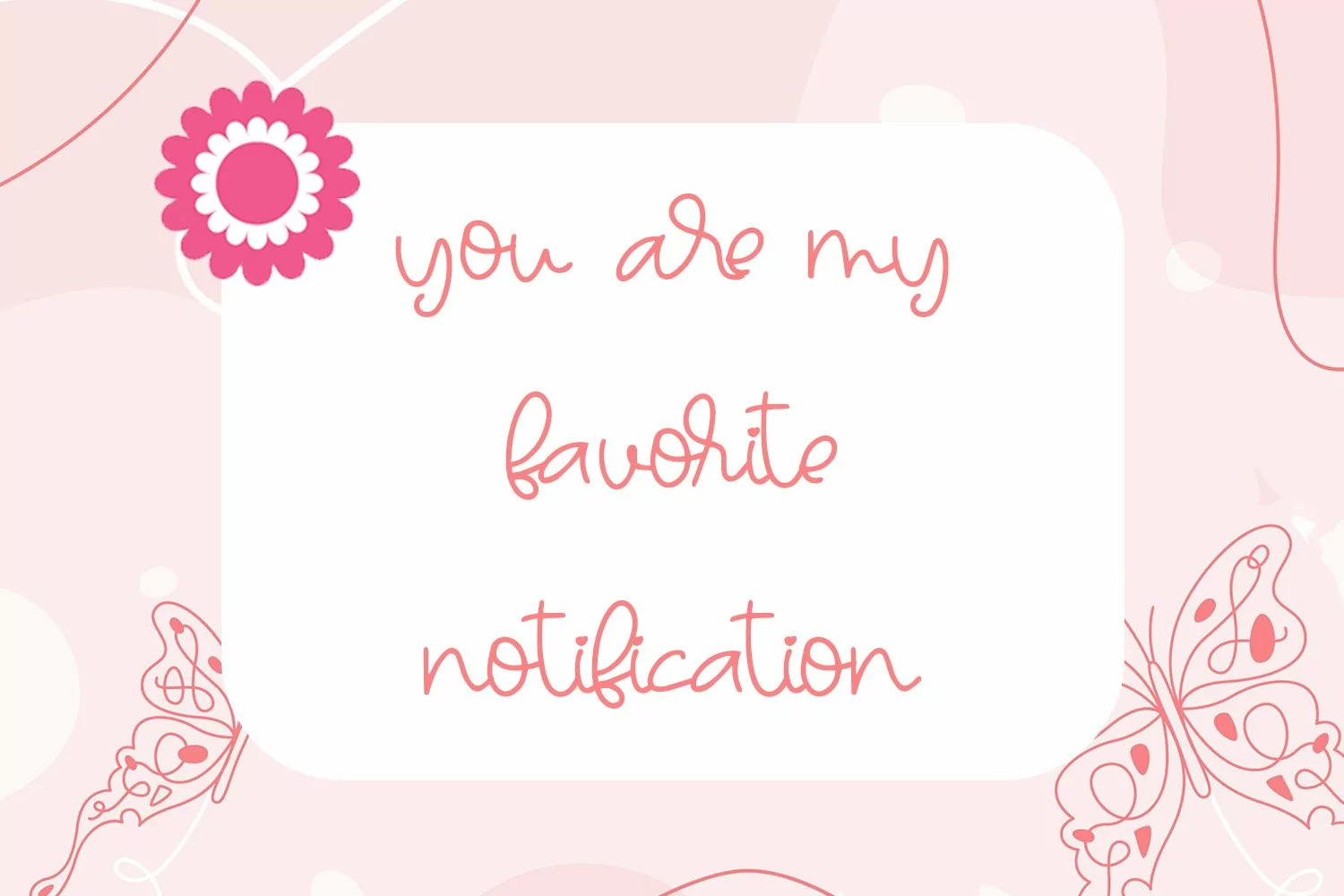
Talleen - Cute Calligraphy Font that contain lowercase, uppercase, symbol, and also support multi language. There’s a lot ligatures in this font. This Font also comes with ligatures, alternates and many more. this font suitable for fashion, branding, catalog and other design what you want.